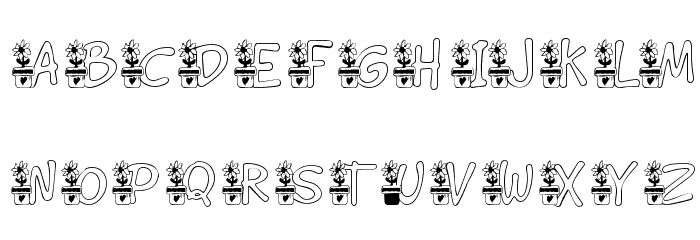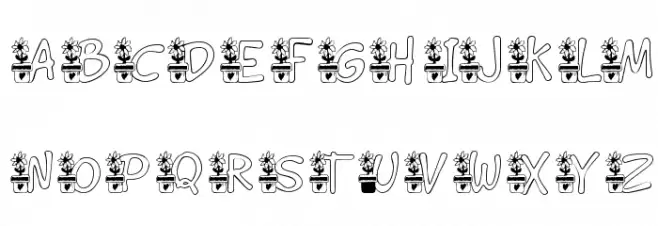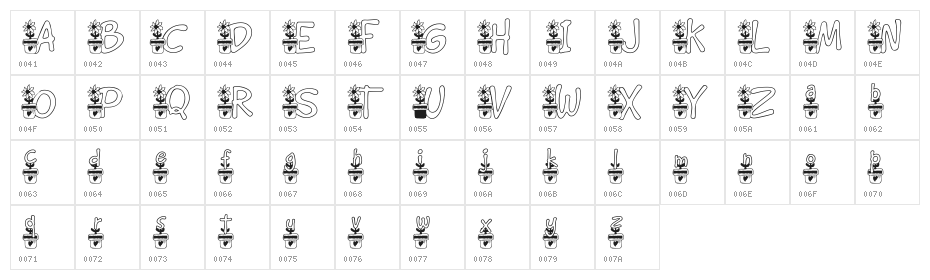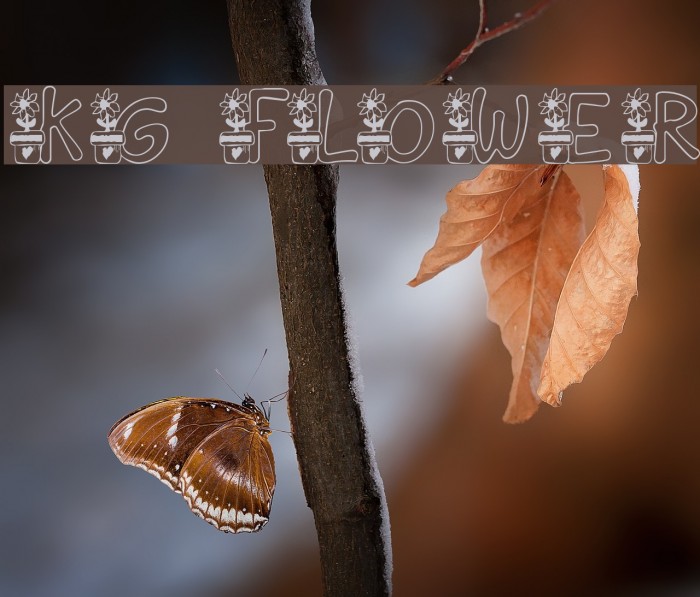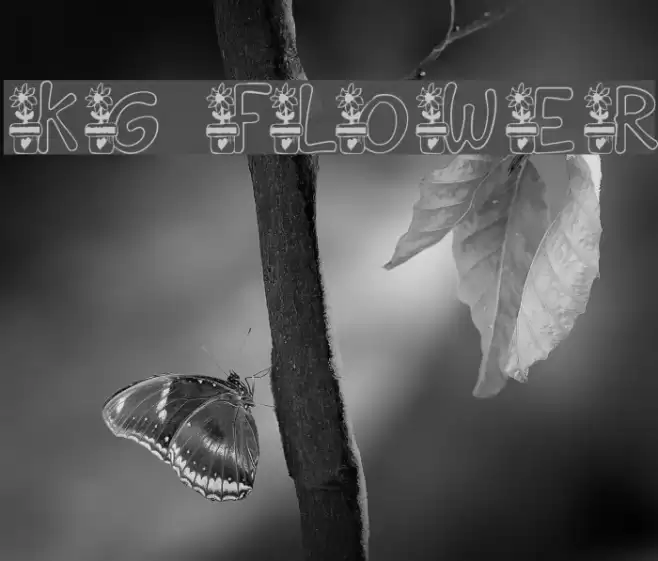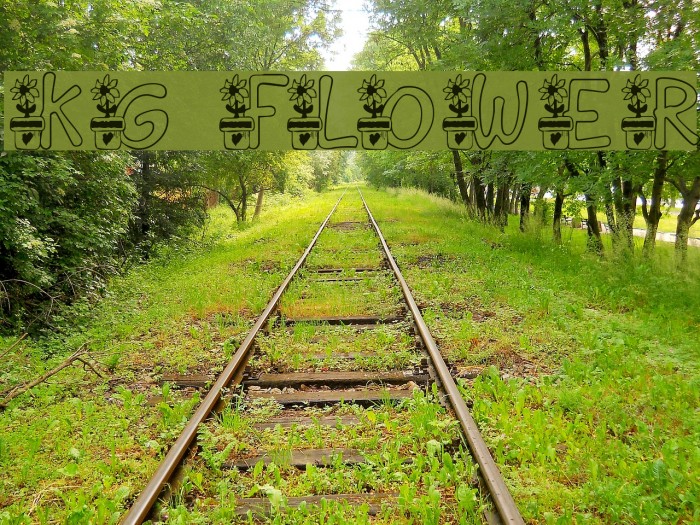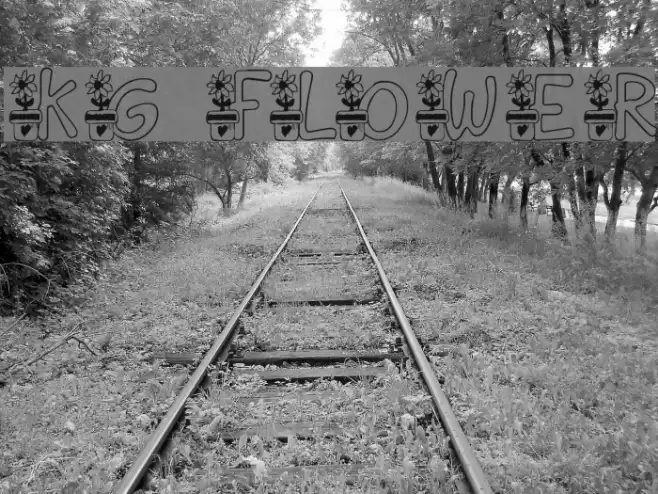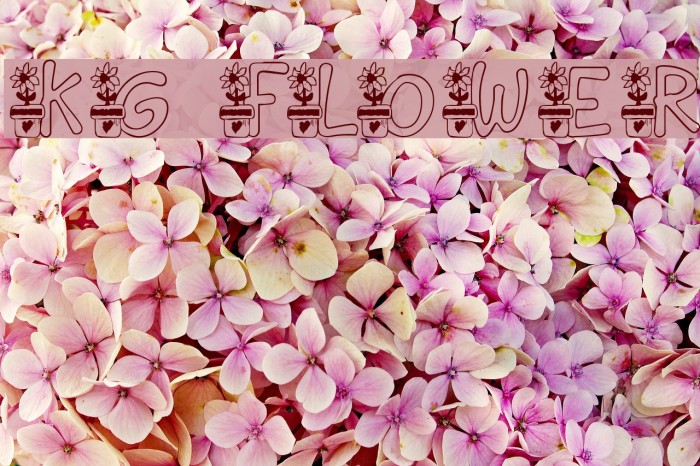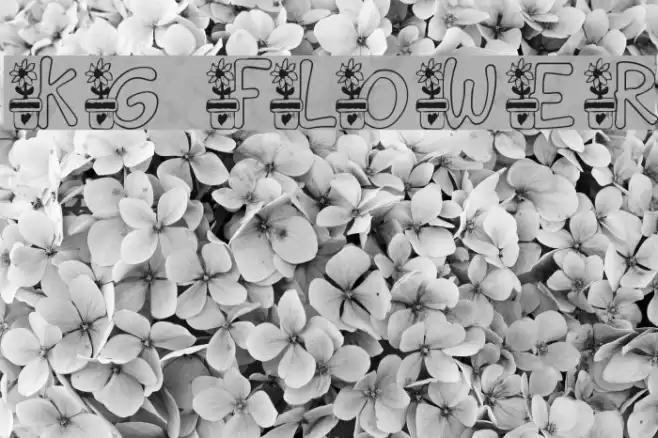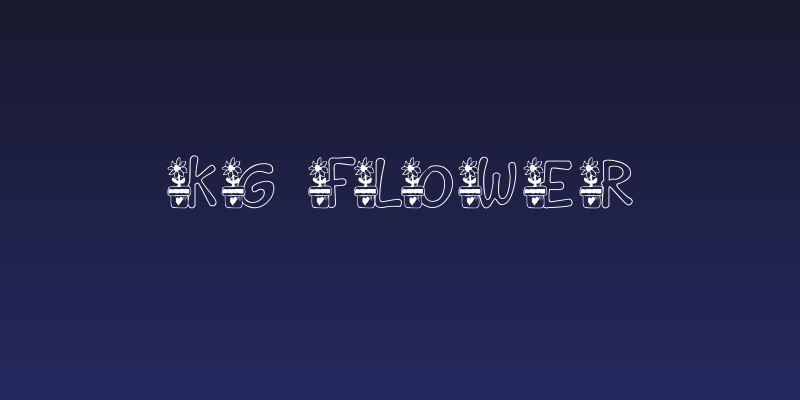
KG FLOWER Font
KG FLOWER Description
This whimsical and decorative font features each letter growing out of a flower pot, with a playful and artistic design. The uppercase and lowercase letters are adorned with plant motifs, creating a unique and charming appearance. The font is highly decorative, making it ideal for creative projects that require a touch of nature and fun. The characters are well-defined, with a consistent style that combines elements of both nature and typography. The overall look is playful and imaginative, perfect for projects aimed at children or nature enthusiasts.
Use CaseHeadlines, Logos, Creative projects
Proposed ProjectsThis font is perfect for children's books, gardening blogs, eco-friendly product packaging, and playful event invitations.